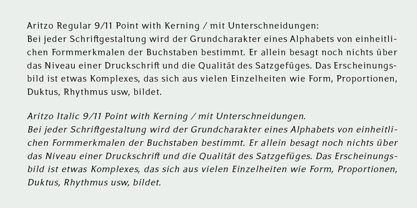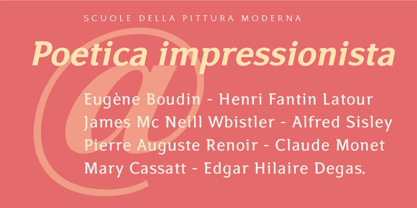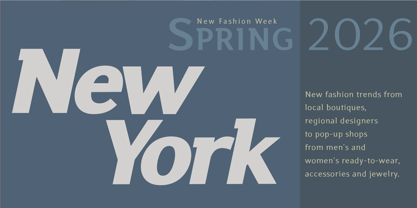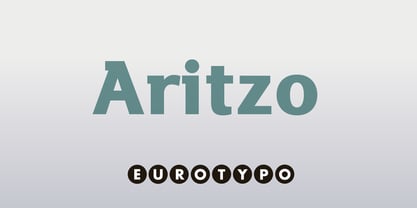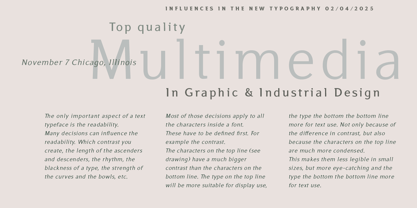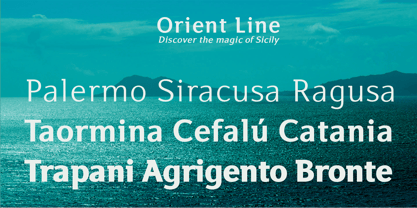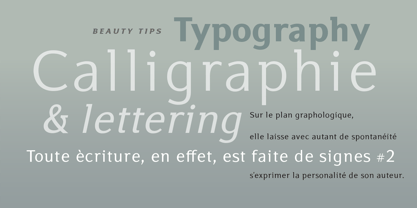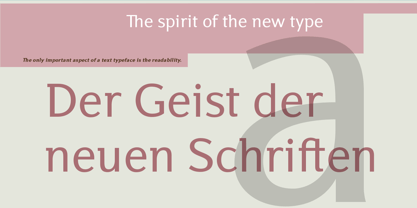
Aritzo
by Eurotypo
The Aritzo Font Family was designed by Olcar Alcaide and published by Eurotypo. Aritzo contains 14 styles and family package options. More about this family
Aritzo is a contemporary sans-serif font family designed to bring style, readability, and versatility to a wide range of design projects. Perfectly suited for continuous text setting magazines, print materials, packaging, and web pages,
With its refined serif details and carefully crafted weight variations, Aritzo boasts a strong and distinctive personality. The font family includes seven weights, each accompanied by a matching Italic version. These Italics add a touch of dynamism and elegance, allowing for greater creative expression and typographic contrast.
Whether you're aiming for a bold, modern aesthetic or a timeless, sophisticated feel, Aritzo delivers the perfect balance of form and function, ensuring your designs stand out with clarity and style.
Designers: Olcar Alcaide
Foundry: Eurotypo